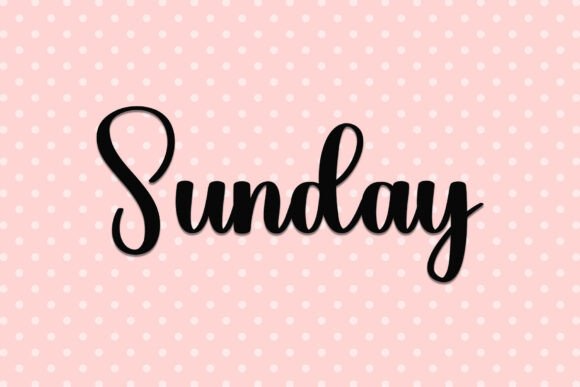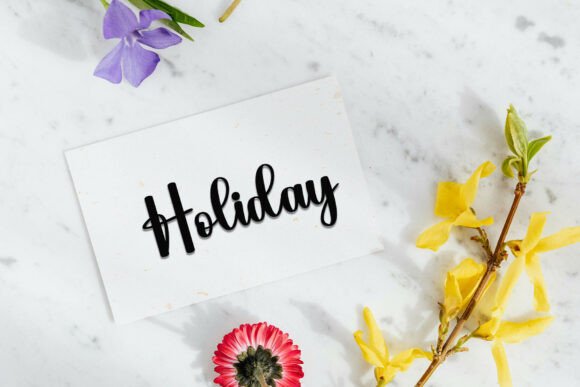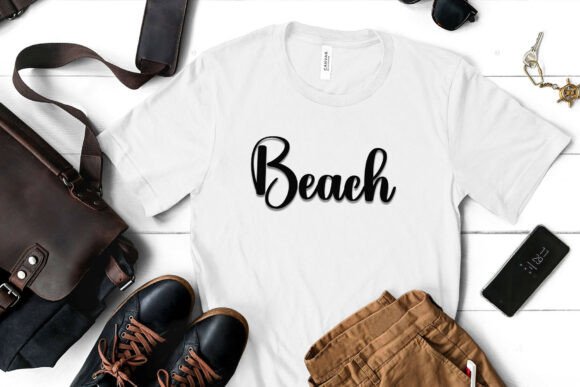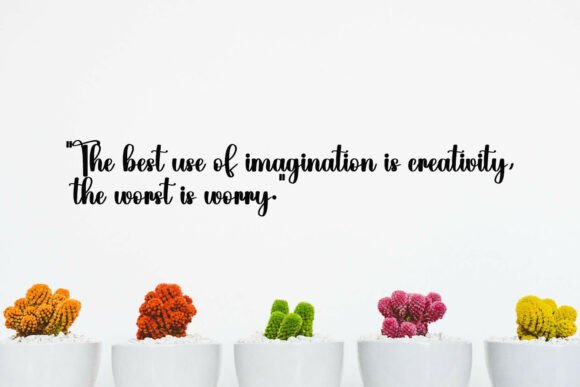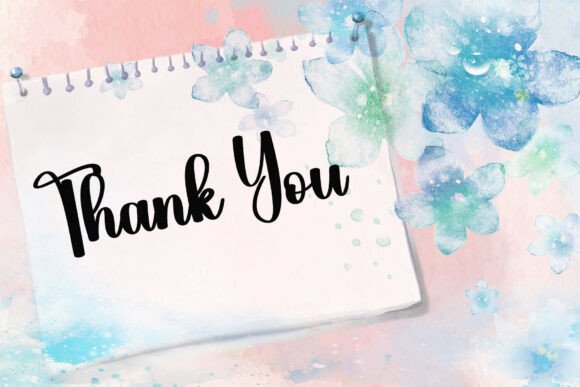
Discover the Best Father Font for Your Next Project
Are you looking for a font that adds a personal touch to your designs? Look no further than the Best Father font! This simple handwritten font is versatile and can be used for a wide range of applications, from greeting cards to headlines. In this article, we’ll explore the features and benefits of the Best Father font and why it’s a great choice for designers and crafters.
What is Best Father Font?
Best Father is a simple handwritten font that exudes a natural and effortless feel. Its unique charm makes it perfect for designs that require a personal touch. The font has a wide spectrum of applications, making it a great addition to any designer’s toolkit.
Key Features of Best Father Font
- Simple and Handwritten: The Best Father font has a simple and handwritten style that gives it a personal and natural feel.
- Versatile: This font can be used for a wide range of applications, from greeting cards to headlines, and even social media posts.
- Unique Charm: The Best Father font has a unique charm that sets it apart from other fonts, making it perfect for designs that require a personal touch.
Benefits of Using Best Father Font
The Best Father font offers several benefits to designers and crafters. Here are a few:
- Adds a Personal Touch: The font’s handwritten style adds a personal touch to designs, making them more relatable and engaging.
- Enhances Readability: The font’s simplicity and clarity make it easy to read, even at small sizes.
- Versatile: The Best Father font can be used for a wide range of applications, making it a great addition to any designer’s toolkit.
- Time-Saving: The font’s versatility and ease of use make it a time-saving solution for designers who need to create high-quality designs quickly.
Use Cases for Best Father Font
The Best Father font can be used for a wide range of applications, including:
- Greeting Cards: The font’s handwritten style makes it perfect for greeting cards, invitations, and other personal correspondence.
- Headlines: The font’s simplicity and clarity make it perfect for headlines, titles, and other typography.
- Social Media Posts: The font’s unique charm and versatility make it perfect for social media posts, including Instagram captions and Facebook updates.
- Branding: The Best Father font can be used for branding, including logos, business cards, and letterheads.
Tips for Using Best Father Font
Here are a few tips for using the Best Father font:
- Use it for Body Text: The font’s simplicity and clarity make it perfect for body text, especially for designs that require a lot of reading.
- Pair it with Other Fonts: The Best Father font can be paired with other fonts to create a unique and visually appealing design.
- Experiment with Sizes: The font’s versatility makes it perfect for experimenting with different sizes and styles.
- Use it for Emphasis: The font’s unique charm makes it perfect for emphasis, including headings, titles, and other typography.
The Best Father font is a versatile and simple handwritten font that adds a personal touch to designs. Its unique charm and ease of use make it perfect for a wide range of applications, from greeting cards to headlines. Whether you’re a designer or crafter, the Best Father font is a great addition to your toolkit. Try it out today and see the difference it can make in your designs!